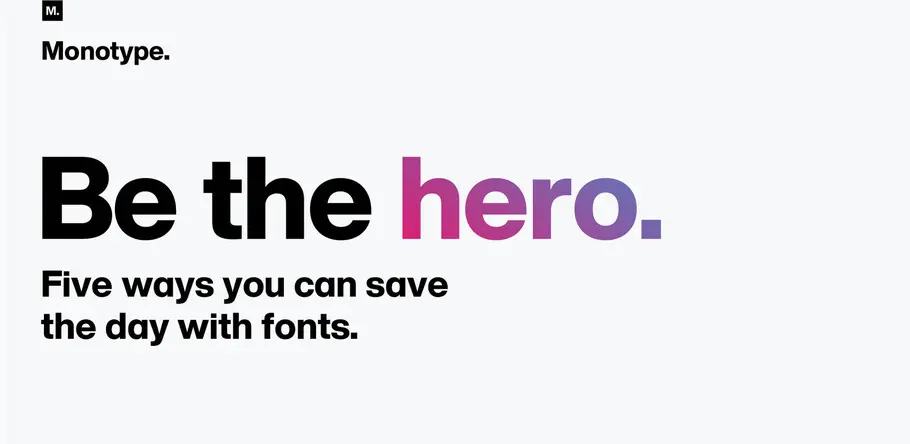
What’s on tap for Adobe MAX 2019.
Adobe MAX is right around the corner! Here’s a quick look at what we have planned for this year’s conference.
In Monotype’s breakout session at Adobe MAX, Monotype Type Director Charles Nix and Senior Creative Director James Fooks-Bale will explore how fonts can enhance designs, helping to create experiences that are unique, recognizable, and engaging.
Charles was part of the Helvetica Now team and the designer behind the award-winning Hope Sans, so he knows a thing or two about how fonts can have a life and personality of their own. James oversees the development of Monotype’s brand as its Creative Director.
Together, they will guide attendees through the crucial steps every creative needs to take when kicking off a new project, designing for an important product launch, or working on a brand refresh. You’ll even get a sneak peek at the new Montoype.com, a major component of our own brand overhaul.
They’ll focus on five key elements fonts can support:
Amplify and express emotion. Your fonts are your voice. Fonts can be quiet or loud, strange or serious, old fashioned or shockingly modern, calming or disruptive. See how fonts can help establish the tone and personality of a product, brand, or project, and why it’s essential to understand how and why certain fonts convey certain emotions.
Recognizable, readable & legible. Fonts today have to perform in a huge range of environments, from tiny watch screens to huge billboards, with countless physical and digital use cases in between. Charles and James will outline what to look for when selecting fonts fonts that can handle the rigors of the modern world.
Take chances! Brands today are competing for attention in more places than ever, and a thoughtful font system is one way to stand out (in a good way, of course) among the competition. Find out how to thread the needle between something that distinguishes your visual identity from the competition without going too far afield.
They have to work. Fonts are more than just beautiful designs—they’re software, and like any software, they need to be well-engineered, reliable, and up to the task of modern digital environments. See what goes into engineering today’s fonts, and why it’s important to use fonts you can trust.
Flex as needed. Fonts are not a one-and-done decision, but rather a system of designs that should grow and adapt over time as new opportunities and challenges arise. New products, shifting audiences, and global expansion can all require fresh designs and, quite often, adding new fonts to mix.